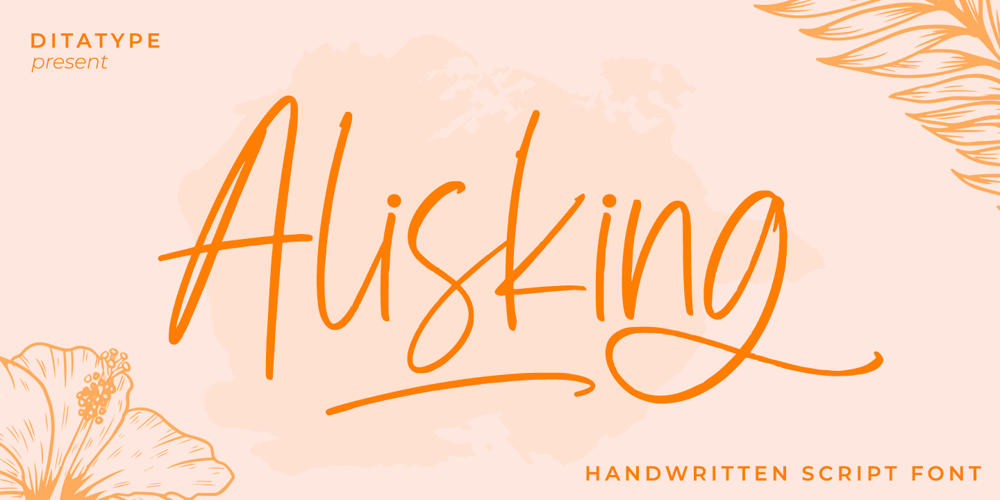
Alisking Font Family was designed by Donis Miftahudin and published by Ditatype. Alisking contains 1 styles and family package options. Alisking is a classy handwritten font. Made for any professional project branding. It is the best for logos, branding and quotes. Every letter has a unique and beautiful touch.Includes:Alisking (OTF)Features: Beautiful Ligatures Alternates Swashes Multilingual Support PUA Encoded Numerals and Punctuation Thank you for downloading premium fonts from Dita Type